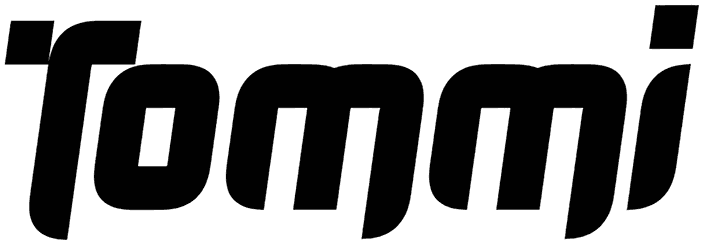
Tommi Font
Meet Tommi, a techno font with a modern and laid-back vibe. With rounded corners and bold lines, it can show your words in a strong and memorable way. Set Tommi for wordmarks, web graphics, game shows, or any design you…
Meet Tommi, a techno font with a modern and laid-back vibe. With rounded corners and bold lines, it can show your words in a strong and memorable way. Set Tommi for wordmarks, web graphics, game shows, or any design you are working on, and catch a lot of attention for your project.